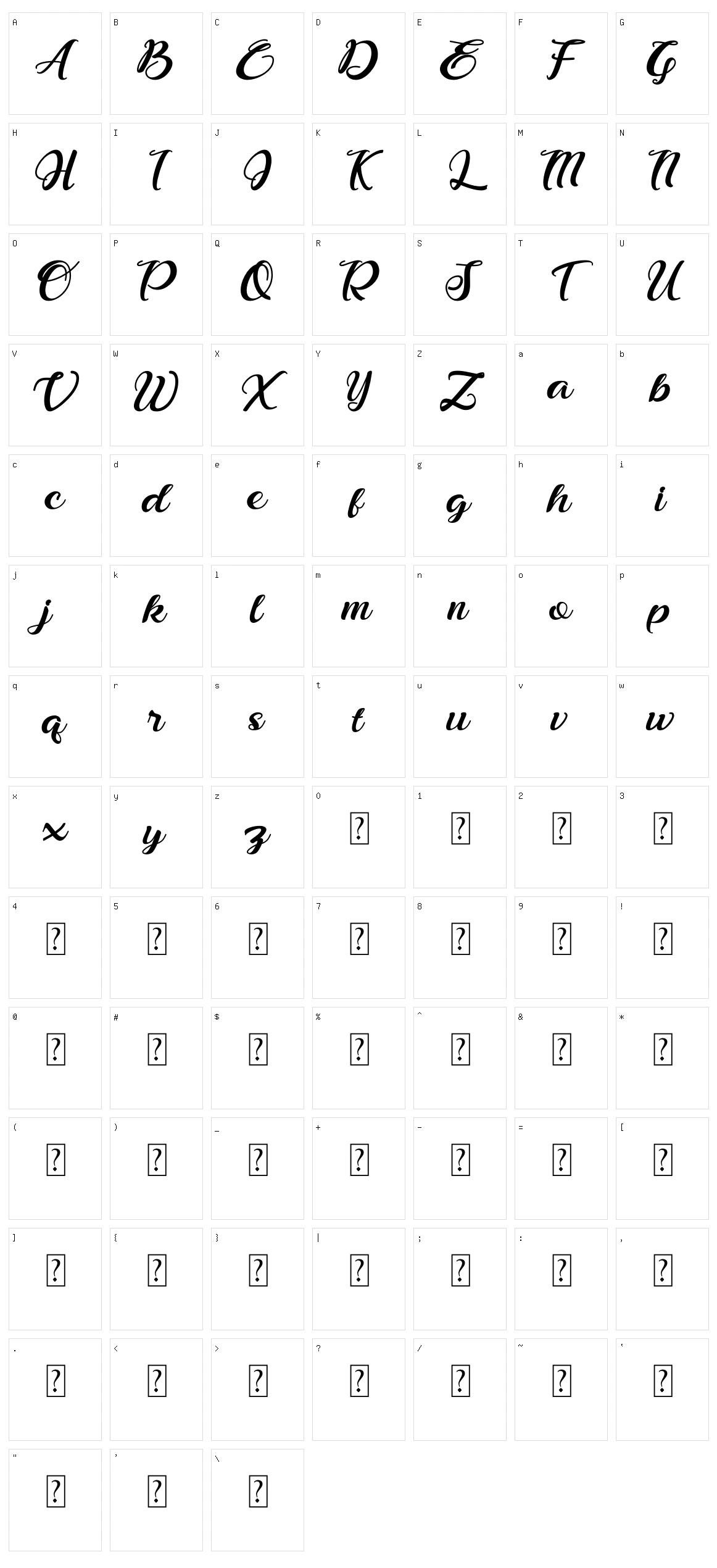
The free font Bonjour Allgera is carefully designed by Marchtwentype, showcasing a thoughtful balance of creativity and usability and falls under the Script font style. When you download the ZIP file, it contains only 19.57 KB of font files, making it lightweight and quick to download. Please review the license details below to understand permitted usage and distribution rights. If license information is not available, we recommend using this font for personal projects only or contacting the author directly for commercial usage permissions.